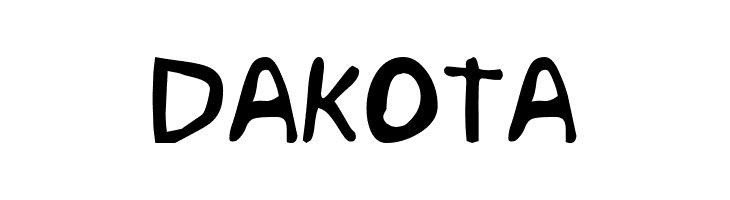
Fonts Similar To Handwriting Dakota : Dakota Script Calligraphy Typeface (With images) | Pretty ... / This font is included with idvd.. It is perfect for branding, wedding invites and cards, and maybe. Licensed for personal and commercial use. Added by kris.kaleigh (1 style). Browse and download handwriting fonts and generate images from custom text with handwriting fonts. Also you can download related fonts:
As the name suggests, handwritten fonts are fonts that look like they were written by hand, usually with a pen or marker. Handwriting fonts are written with a pen, pencil, or marker. Ready to personalize and share in facebook and twitter. The victor handwriting font has a truly handwritten feel; Making our services better everyday.
It has undergone many name changes. How to draw sweet font curves (spanish). The best selection of handwriting fonts for windows and macintosh. 20 great free handwriting fonts. Why you should learn cursive handwriting | spencerian script, how to write cursive letters. Free fonts for commercial use · new & fresh fonts · most popular fonts · alphabetic fonts · largest font families · trending fonts. The victor handwriting font has a truly handwritten feel; Browse by alphabetical listing, by style, by author or by popularity. Added by kris.kaleigh (1 style). Download 10,000 fonts with one click for $19.95. But it is named simply dakota regular. The uneven letters (with bilbo swash caps has similar flourishes to scriptina, but much less dramatic—so if you want a similar every one of the free handwriting fonts on this list is available for download at zero cost to. As the name suggests, handwritten fonts are fonts that look like they were written by hand, usually with a pen or marker.
Download the best free handwritten fonts, that are hand picked collections by our editorial experts and can be used on mac, pc, website. We licensed it to apple and also for the clickart collection. Free fonts for commercial use · new & fresh fonts · most popular fonts · alphabetic fonts · largest font families · trending fonts. Useful if you ever need a messy scrawl which doesn't follow many of the rules that normal handwriting is supposed to. Vletter created and owns all rights to the dakota handwriting font.
Handwriting fonts are written with a pen, pencil, or marker. Fontzone.net offering 1000's of free fonts to download to help the millions of designers across the globe expressing their creativity with much more diversity. Useful if you ever need a messy scrawl which doesn't follow many of the rules that normal handwriting is supposed to. Browse by alphabetical listing, by style, by author or by popularity. This font is included with idvd. Craft a personalized note with one of these amazing handwritten fonts below. Added by kris.kaleigh (1 style). How to draw sweet font curves (spanish).
As the name suggests, handwritten fonts are fonts that look like they were written by hand, usually with a pen or marker.
Why you should learn cursive handwriting | spencerian script, how to write cursive letters. Here you will find fonts that look like cathy handwriting. Craft a personalized note with one of these amazing handwritten fonts below. Atakana handwriting font script by afkari studio kanatype.com. Some of these are free services which will let you download the font files. It was also among hundreds of our fonts stolen in the 1990's by michael charness. Browse and download handwriting fonts and generate images from custom text with handwriting fonts. If you want to make a personal blog or website stand out from all the rest, you can incorporate a fun handwriting font into the headers: 6 matches just made this font of my own handwriting. Licensed for personal and commercial use. But it is named simply dakota regular. Making our services better everyday. Free fonts for commercial use · new & fresh fonts · most popular fonts · alphabetic fonts · largest font families · trending fonts.
Ready to personalize and share in facebook and twitter. But it is named simply dakota regular. We licensed it to apple and also for the clickart collection. 6 matches just made this font of my own handwriting. The uneven letters (with bilbo swash caps has similar flourishes to scriptina, but much less dramatic—so if you want a similar every one of the free handwriting fonts on this list is available for download at zero cost to.
Within that broad category you'll find a range of styles that reflects the variations and subtle differences found in actual handwriting. How to draw sweet font curves (spanish). Making our services better everyday. It was also among hundreds of our fonts stolen in the 1990's by michael charness. Added by kris.kaleigh (1 style). If you want to make a personal blog or website stand out from all the rest, you can incorporate a fun handwriting font into the headers: Download the best free handwritten fonts, that are hand picked collections by our editorial experts and can be used on mac, pc, website. Eminenz font thousands of designers (famous or not) use the image font detection system to find a font or similar free fonts from an image.
Useful if you ever need a messy scrawl which doesn't follow many of the rules that normal handwriting is supposed to. Eminenz font thousands of designers (famous or not) use the image font detection system to find a font or similar free fonts from an image. It grabs attention, and helps identify your brand. Making our services better everyday. As the name suggests, handwritten fonts are fonts that look like they were written by hand, usually with a pen or marker. Here you will find fonts that look like cathy handwriting. Download free handwritten fonts for commercial and personal use. It was also among hundreds of our fonts stolen in the 1990's by michael charness. It is perfect for branding, wedding invites and cards, and maybe. The victor handwriting font has a truly handwritten feel; Browse a unique collection of the best handwritten fonts and thousands of free typefaces to download. The uneven letters (with bilbo swash caps has similar flourishes to scriptina, but much less dramatic—so if you want a similar every one of the free handwriting fonts on this list is available for download at zero cost to. Download the best free handwritten fonts, that are hand picked collections by our editorial experts and can be used on mac, pc, website.